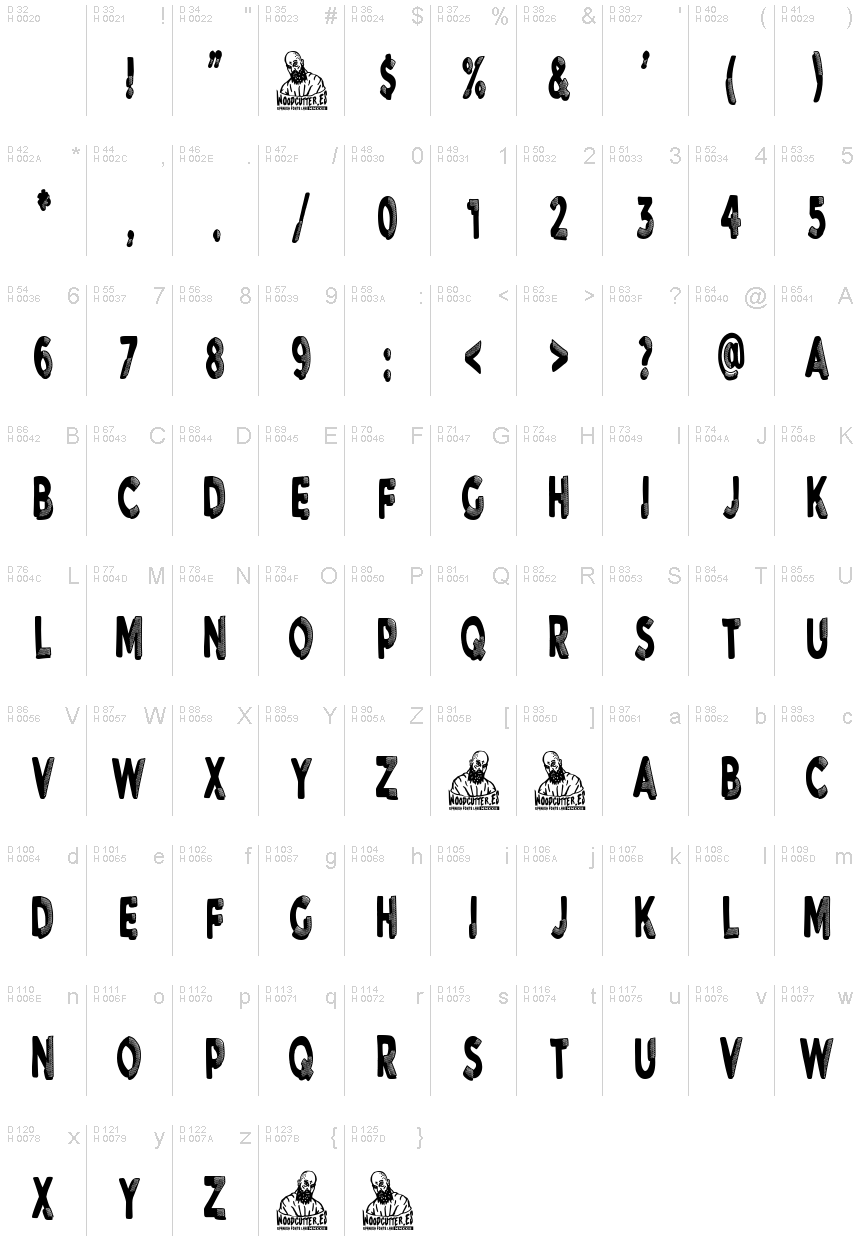
Binoculars
Binoculars font, designed by Woodcutter, captures a playful, cartoonish essence that instantly draws attention. Its bold form and condensed character amplify visual impact, creating a striking presence in any design. The distinctive lines and quirky details infuse a sense of fun and creativity, making it perfect for projects aimed at engaging audiences of all ages.
Ideal for children's books, playful branding, or promotional materials seeking to evoke joy and whimsy, Binoculars stands out as a versatile choice. Its unique personality enhances messages with an inviting flair while ensuring readability. Embrace this font to add vibrancy and memorability to your next creative endeavor.